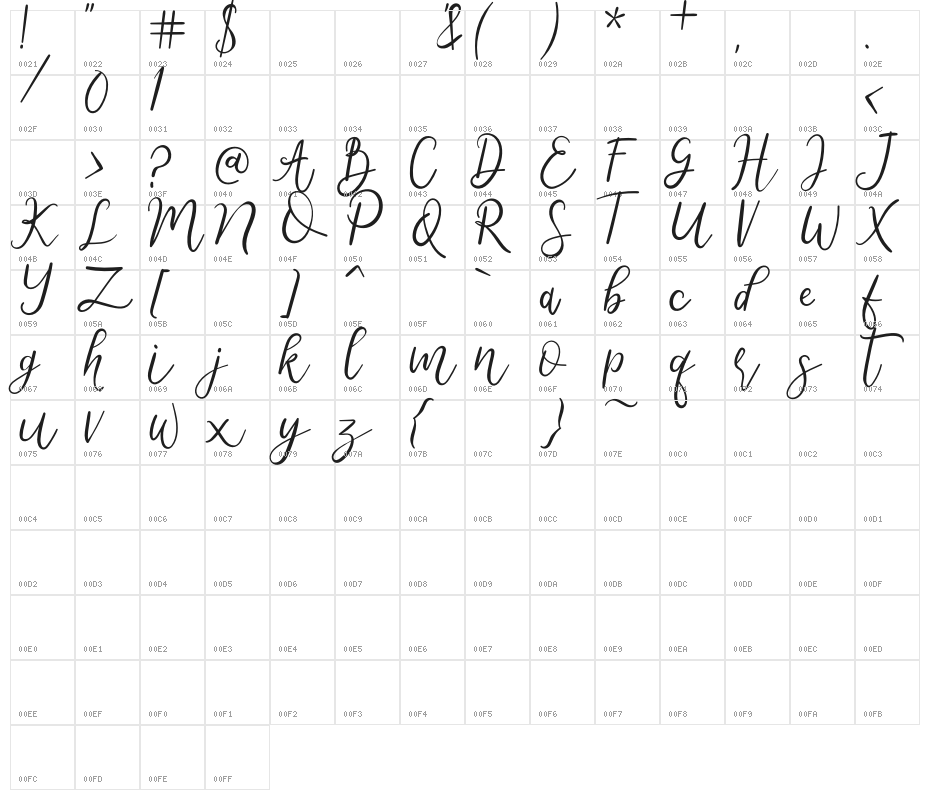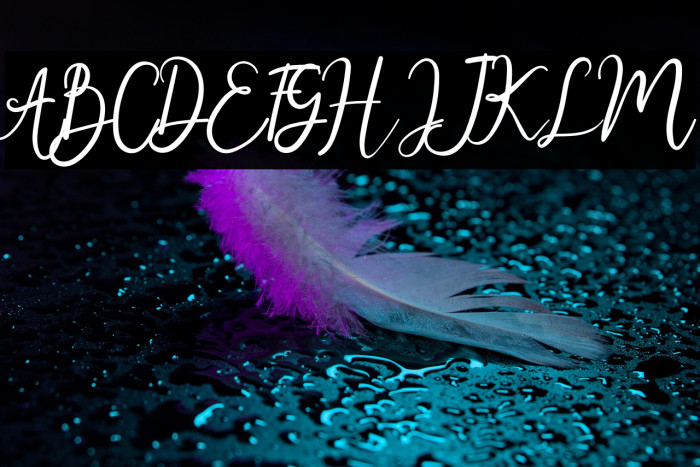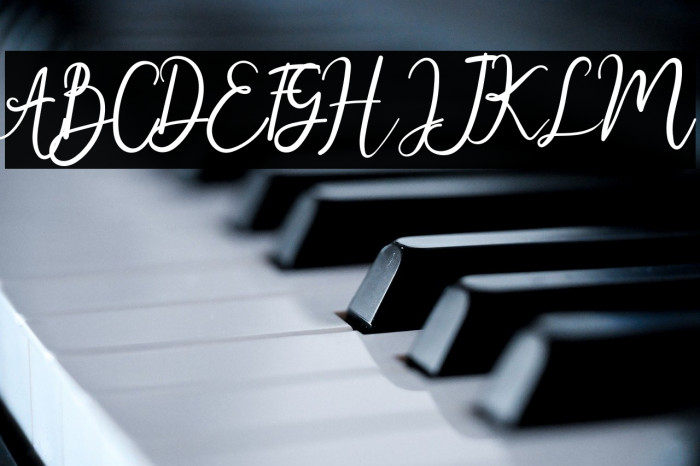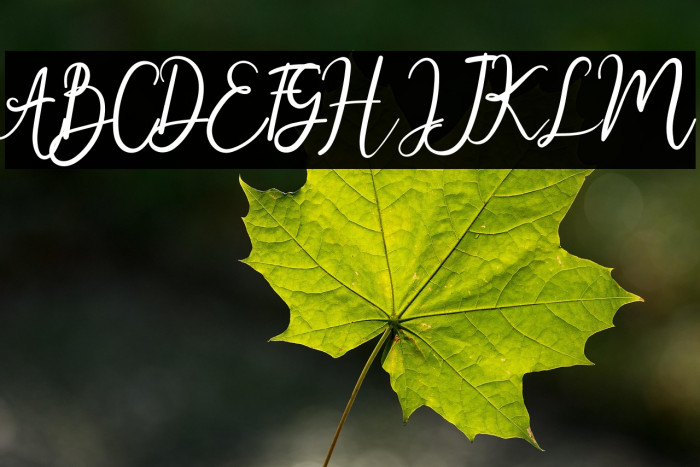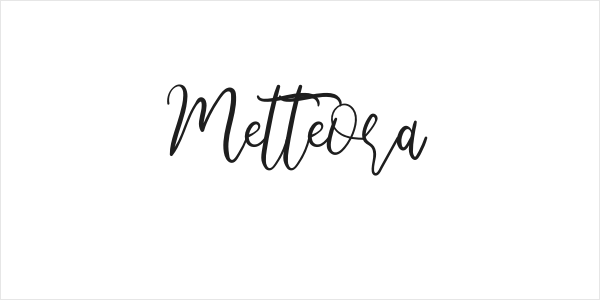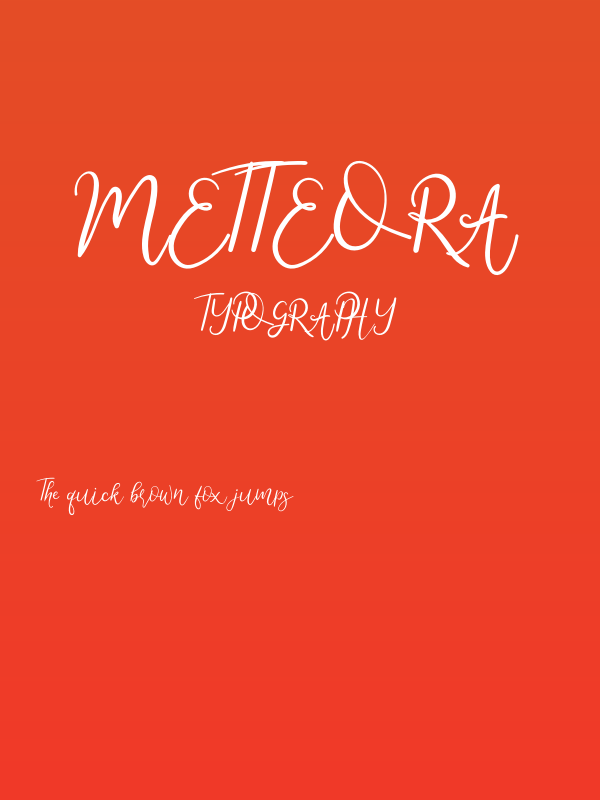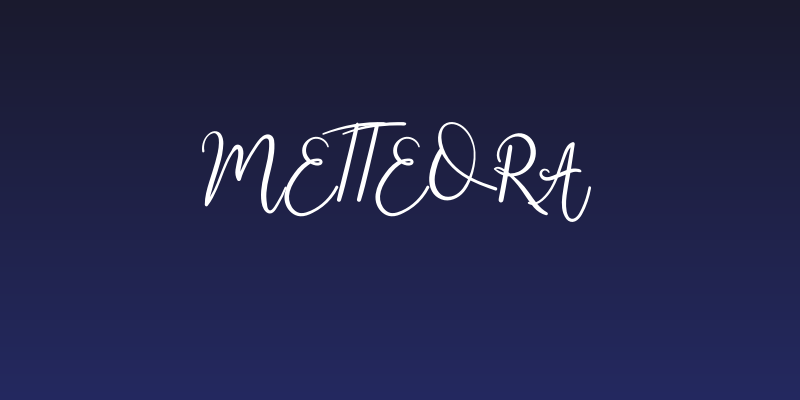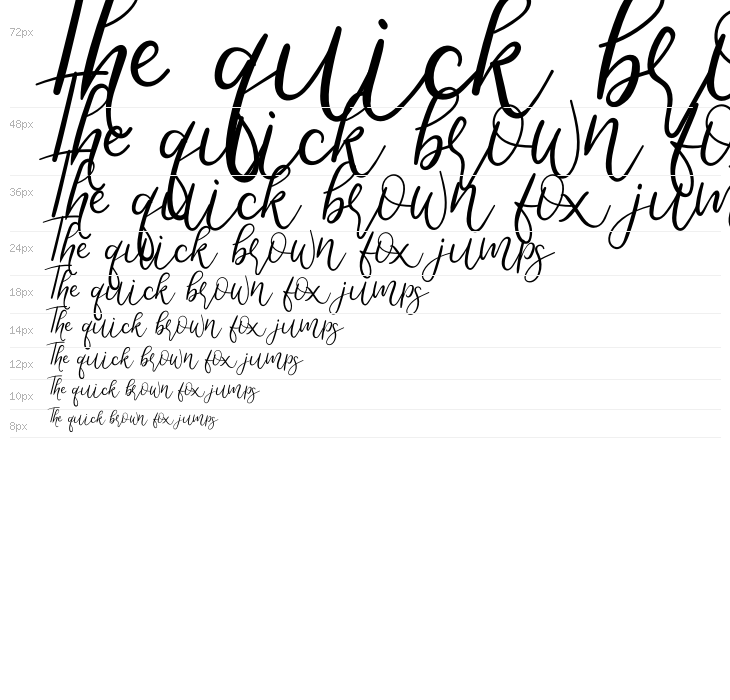
Metteora Font
Metteora Description
This font features an elegant and flowing script style, characterized by its smooth, cursive letterforms that mimic the fluidity of handwriting. The uppercase letters are ornate and slightly larger, providing a graceful contrast to the more delicate lowercase characters. The strokes are consistent in thickness, offering a medium contrast that enhances readability while maintaining a sophisticated appearance. The numerals and special characters are designed to complement the overall script style, ensuring a cohesive look across all text elements. This font exudes a sense of elegance and charm, making it ideal for projects that require a personal touch.
| Use Case | Logos, Invitations, Personal branding |
| Proposed Projects | Wedding invitations, greeting cards, personal branding, and elegant packaging designs. |